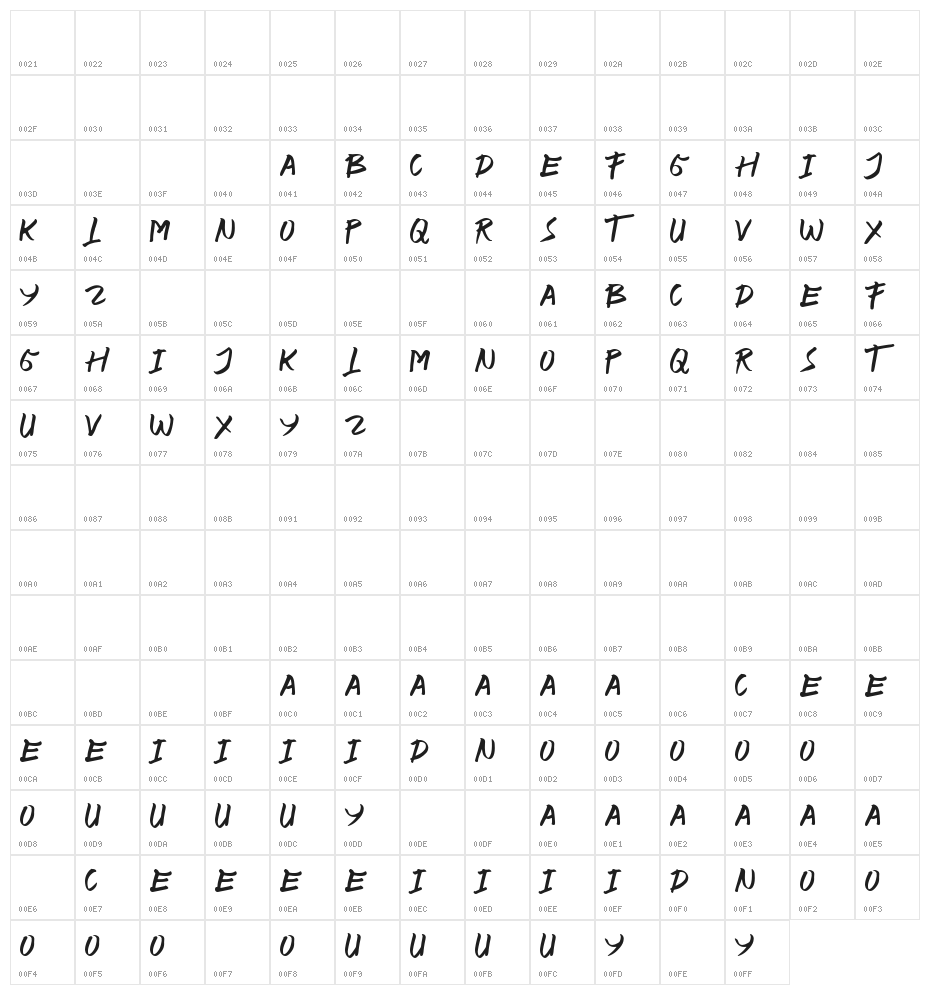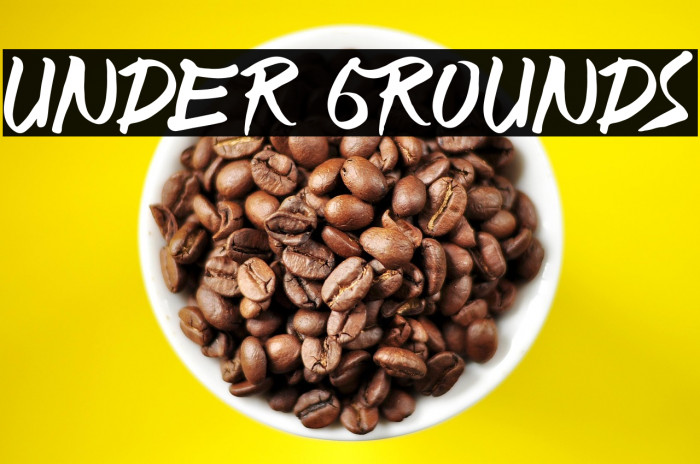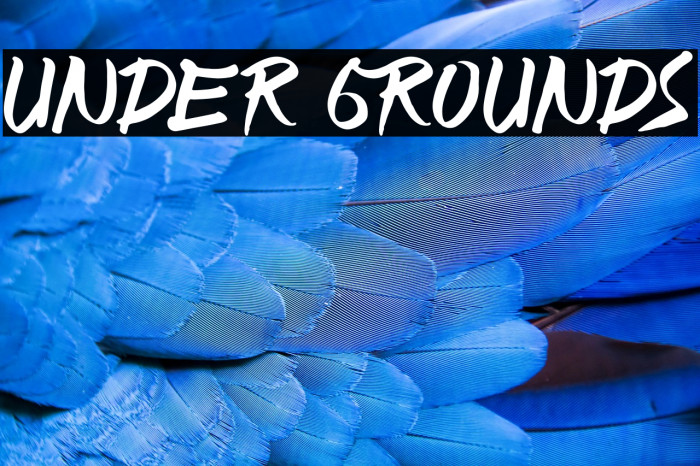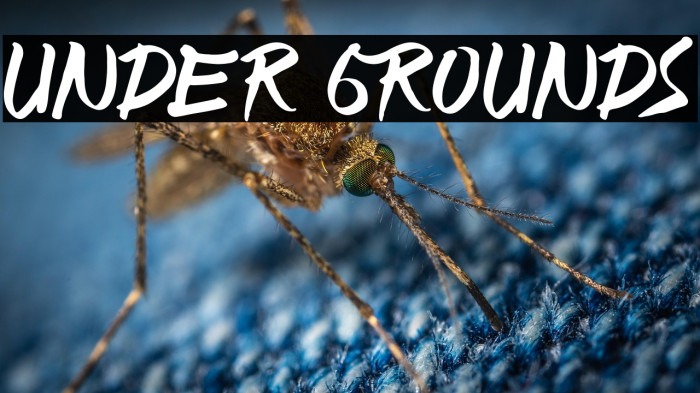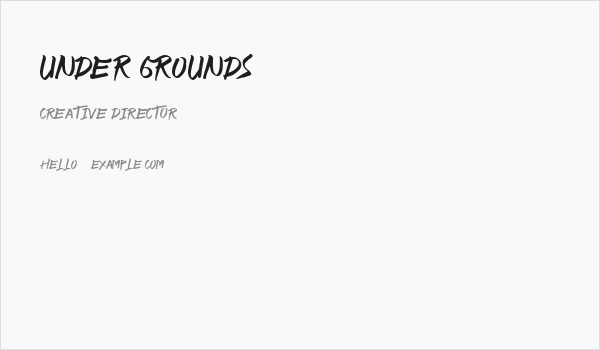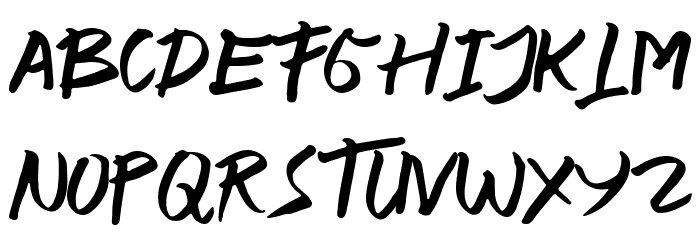
UNDER GROUNDS Font
UNDER GROUNDS Description
This font features a dynamic and energetic handwritten style, characterized by its bold and fluid strokes. The letters are slightly slanted, giving a sense of motion and spontaneity. The uppercase and lowercase letters maintain a consistent style, with a playful and informal appearance. The strokes vary in thickness, adding a lively contrast that enhances its visual appeal. This font is ideal for projects that require a personal touch, such as invitations, posters, or branding materials. Its unique style stands out, making it suitable for creative and artistic applications.
| Proposed Projects | Ideal for invitations, posters, branding materials, and creative projects. |